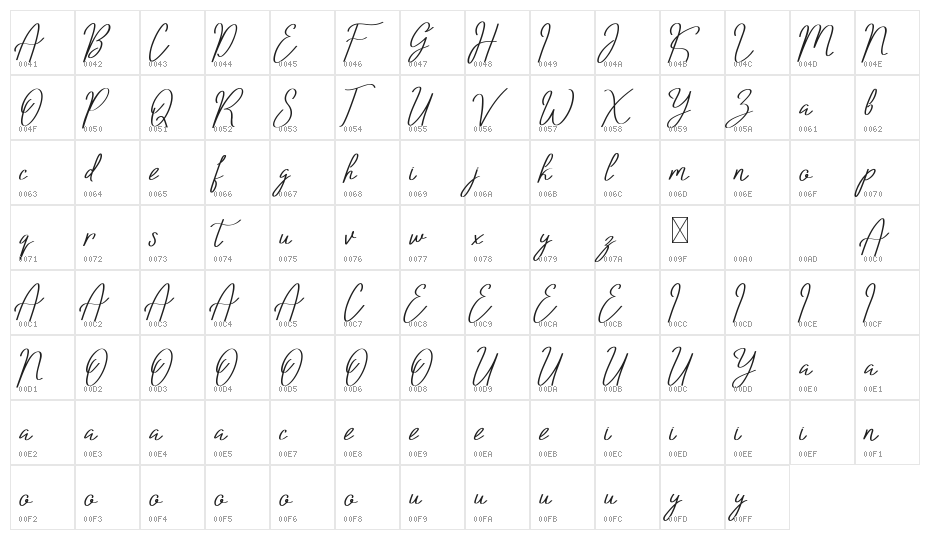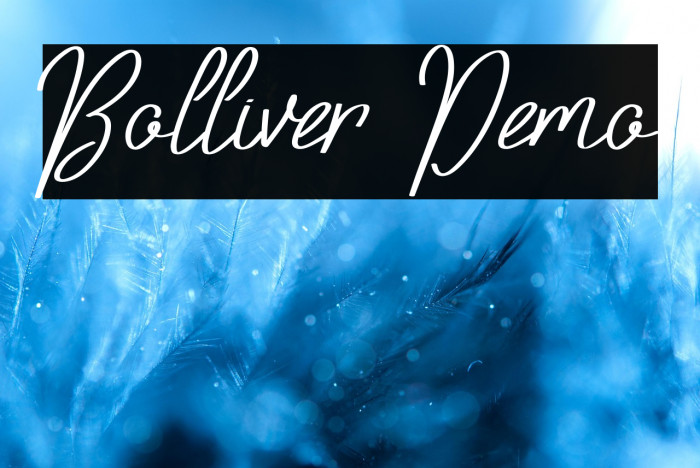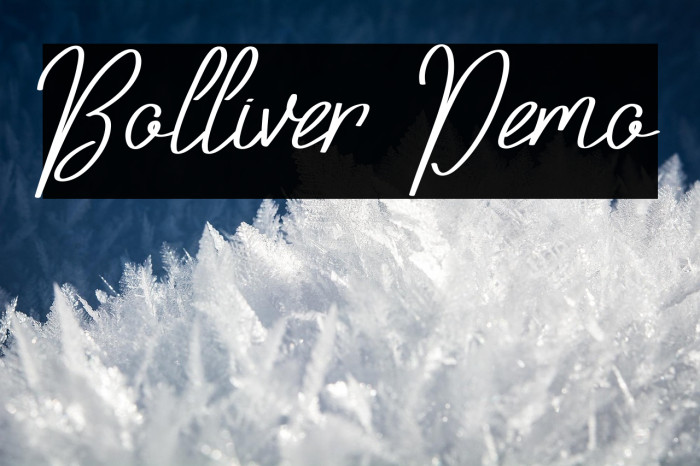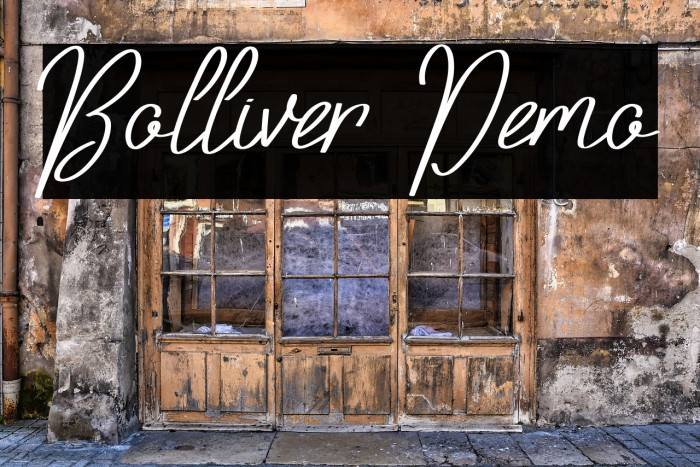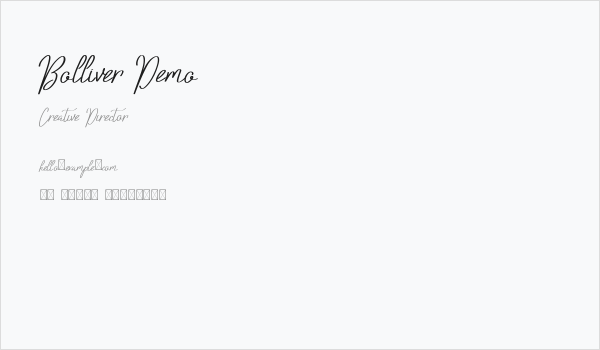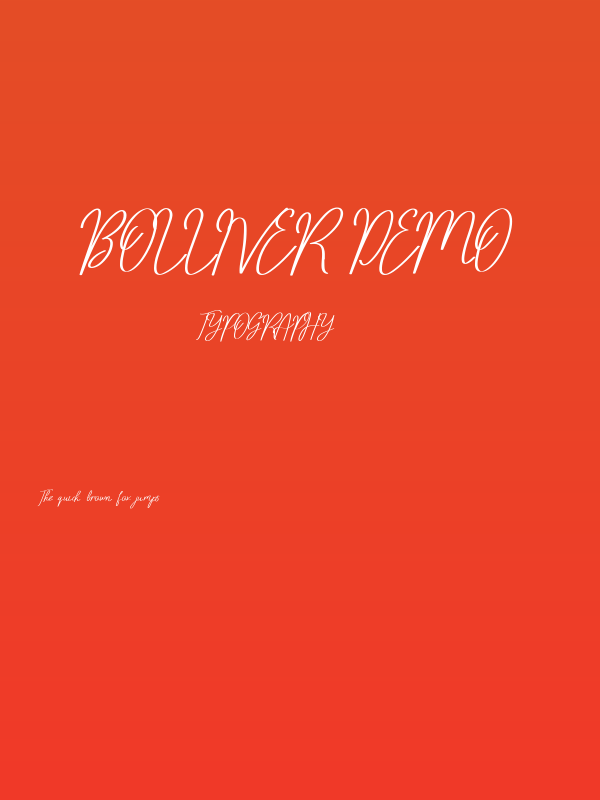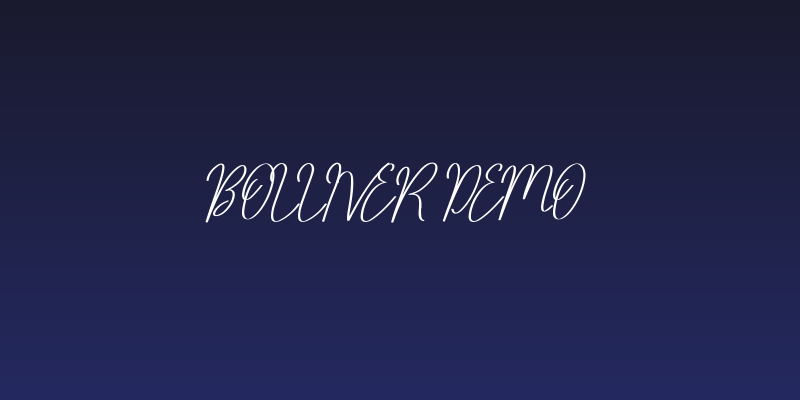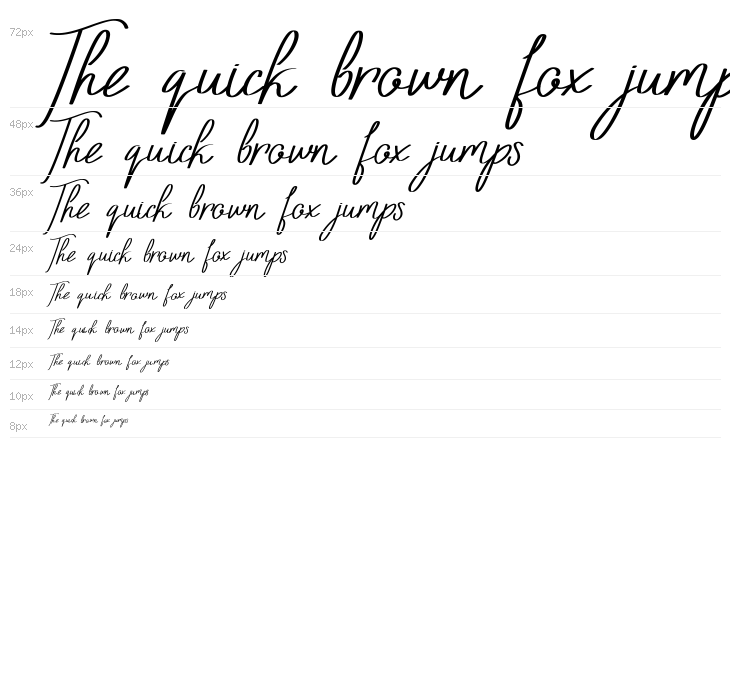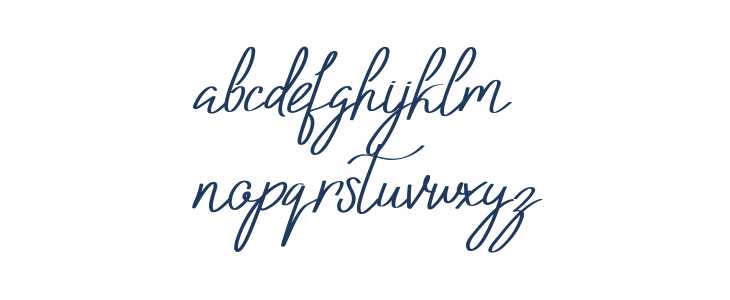
Bolliver Demo Font
Bolliver Demo Description
This font features an elegant and flowing script style, characterized by its cursive, handwritten appearance. The letters are interconnected, creating a smooth and continuous flow that mimics natural handwriting. The strokes vary in thickness, providing a dynamic and lively feel. The uppercase letters are tall and graceful, while the lowercase letters are more compact, maintaining a consistent rhythm throughout. The font exudes a sense of sophistication and creativity, making it suitable for artistic and decorative purposes.